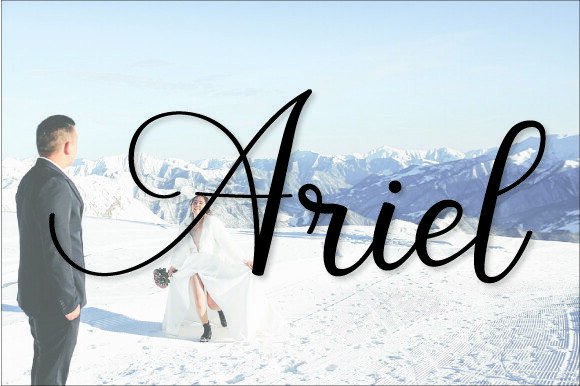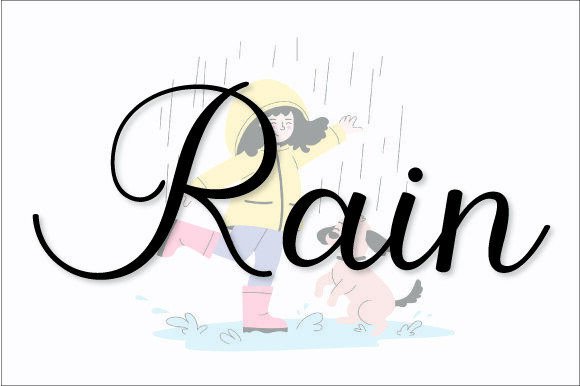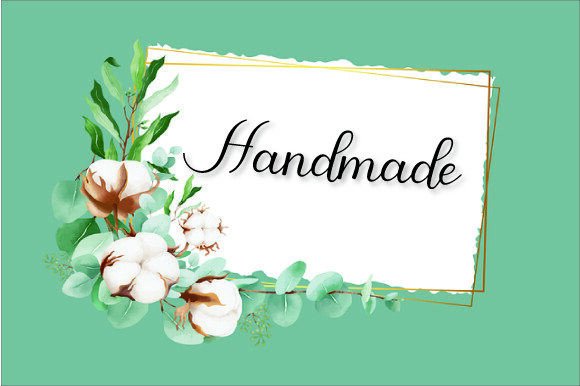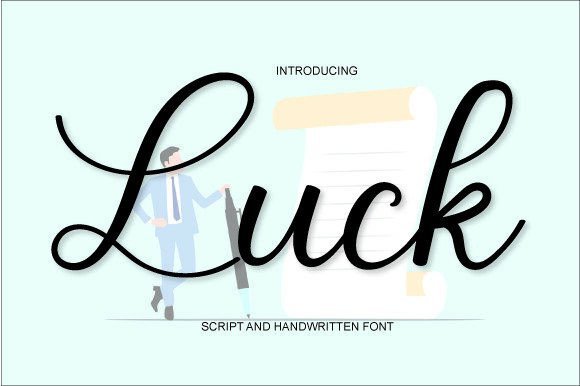
Introduction to Luck Font
Luck is a sweet and cursive handwritten font.
This gentle font will look gorgeous on a variety of design ideas It will add a joyful and romantic touch to each of your projects.